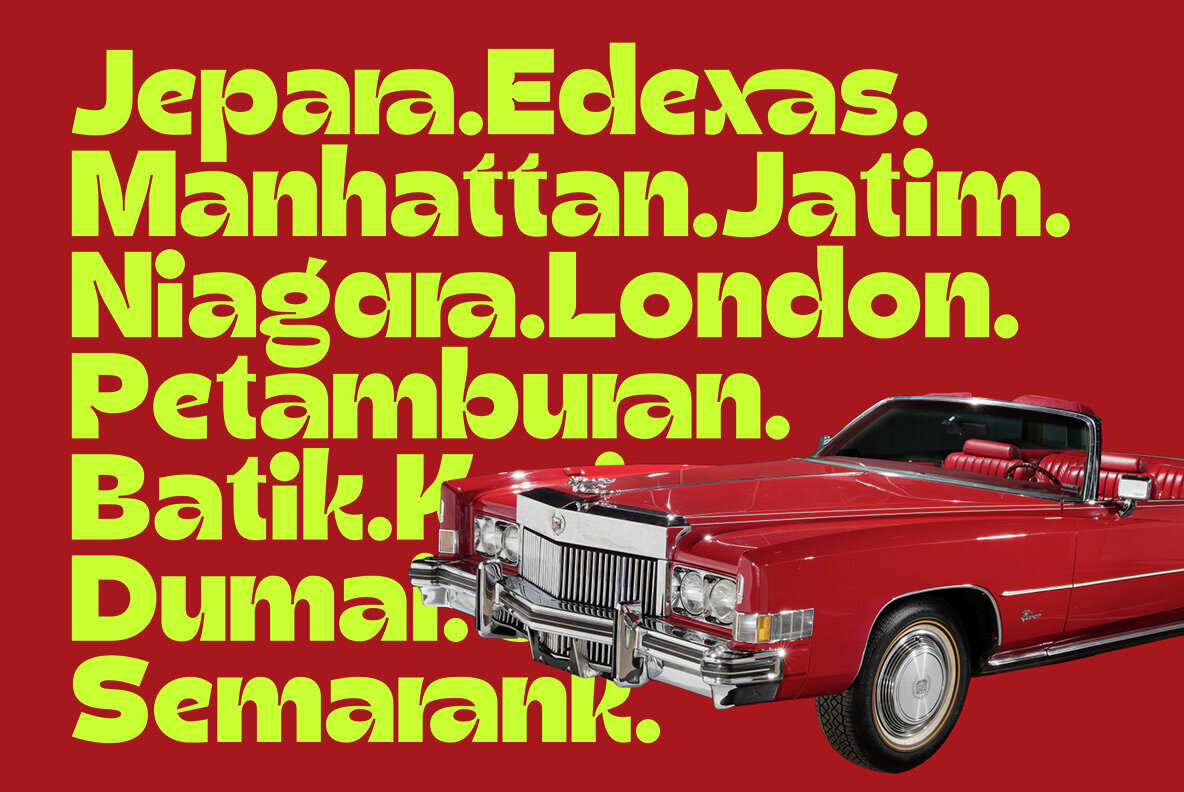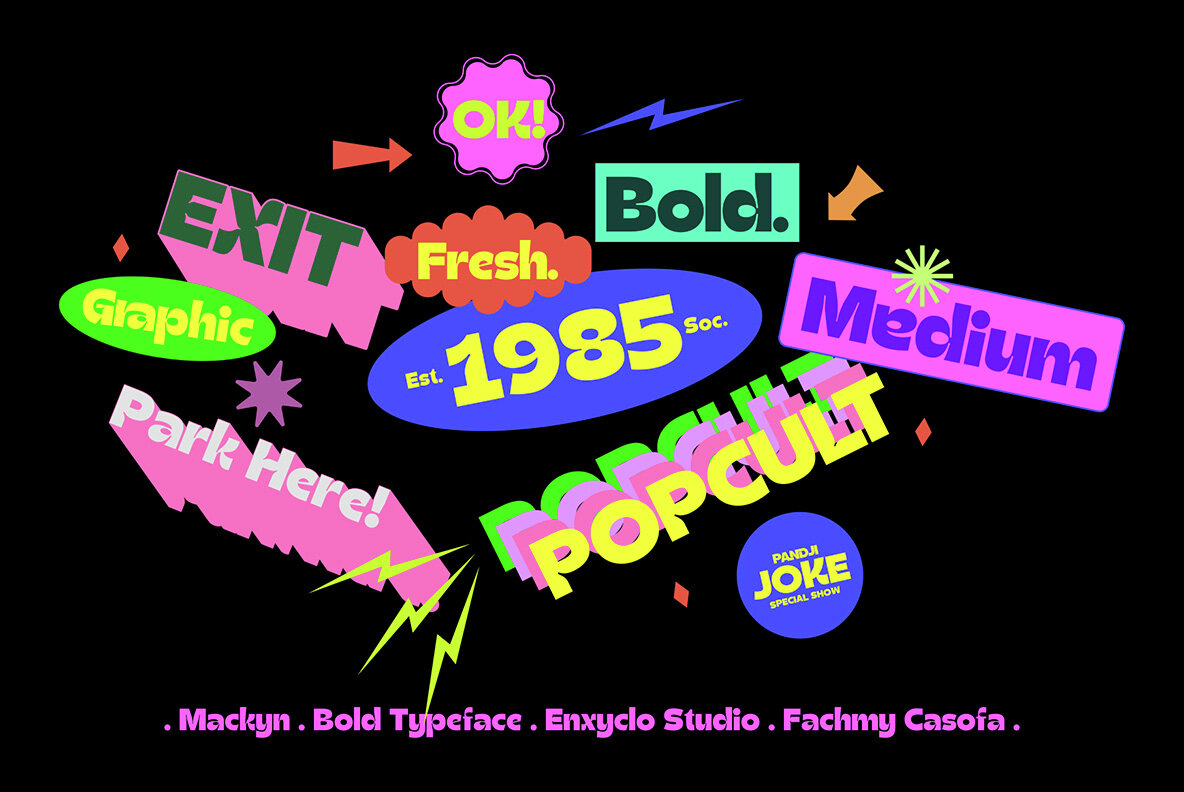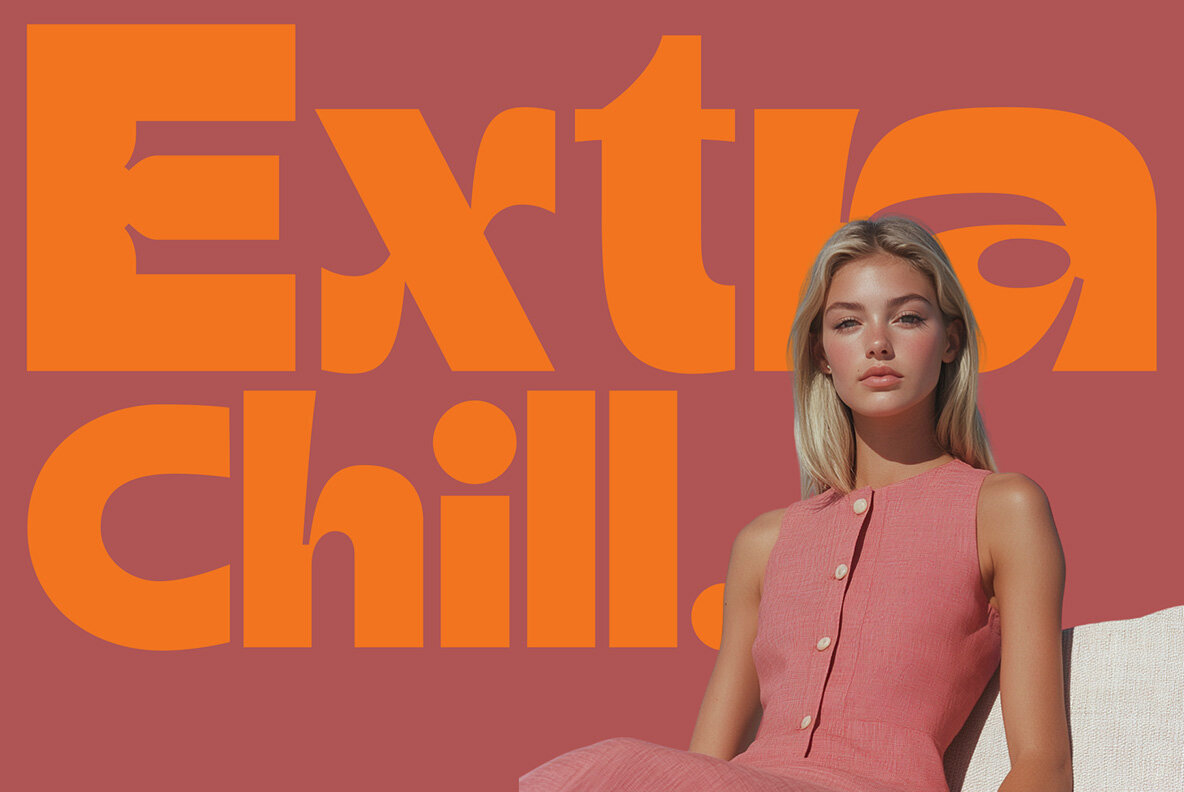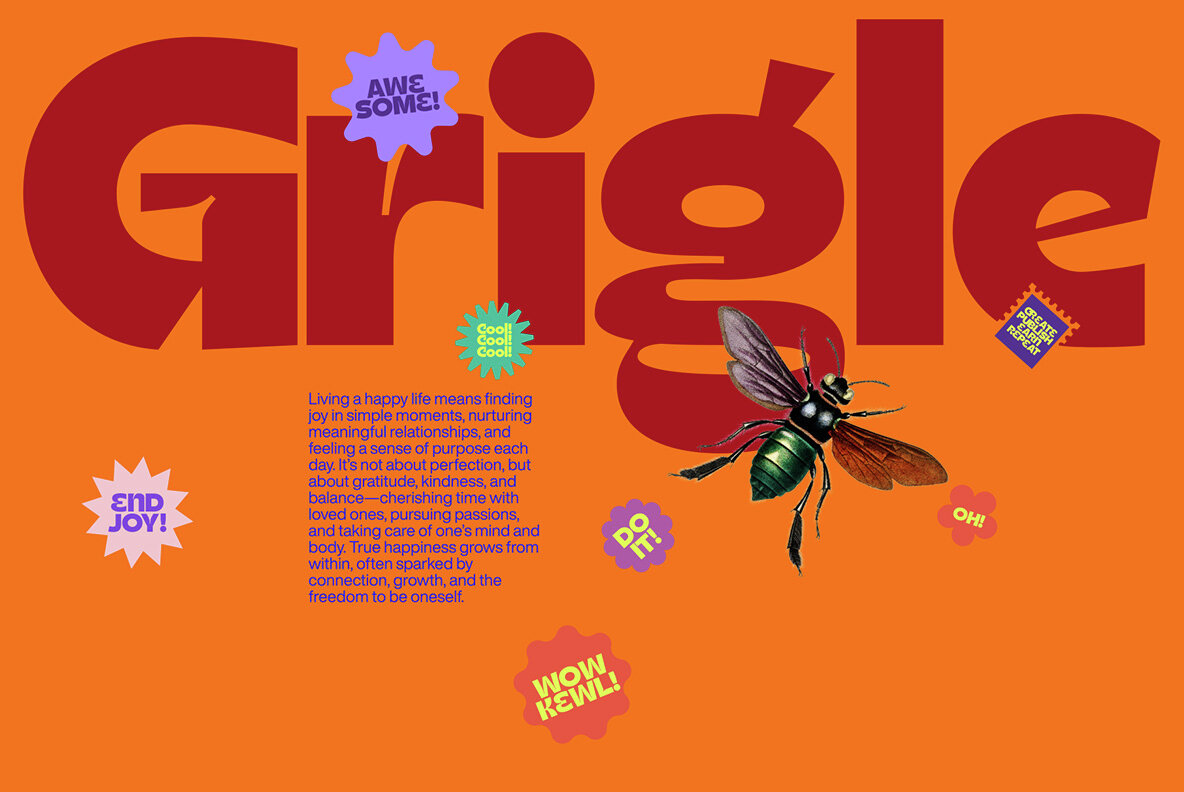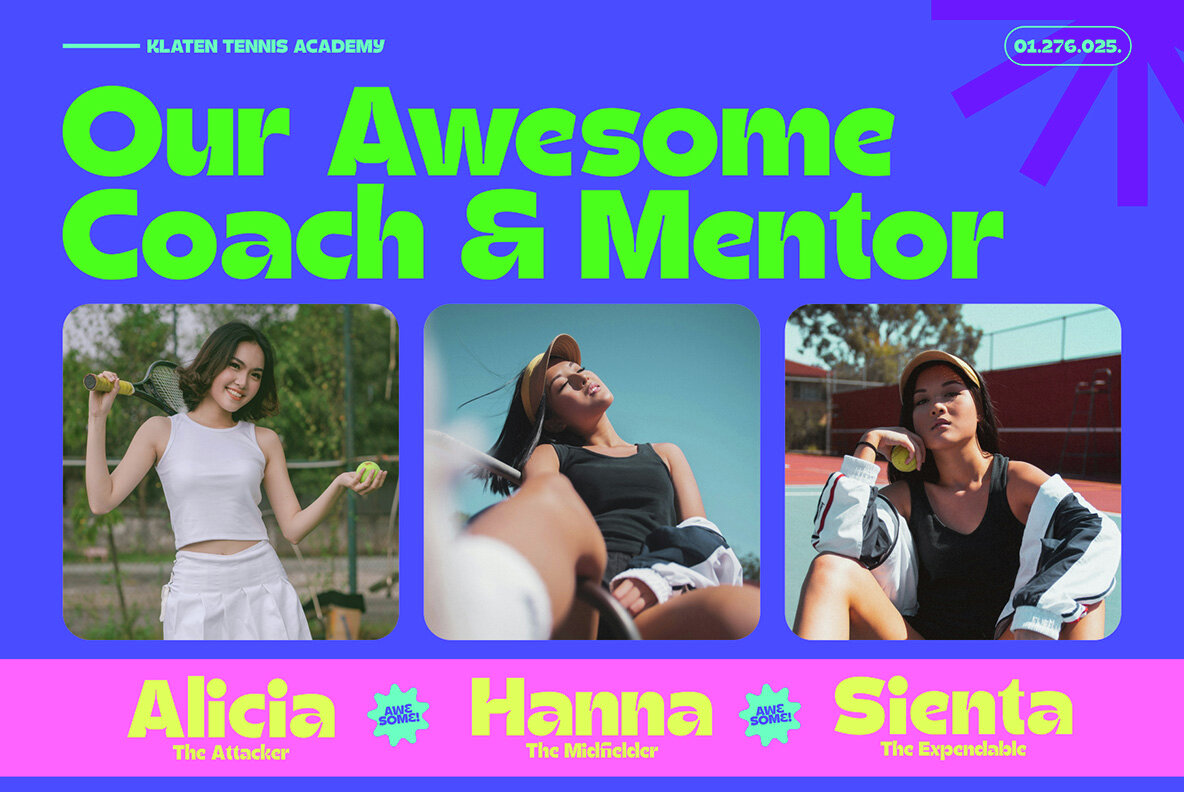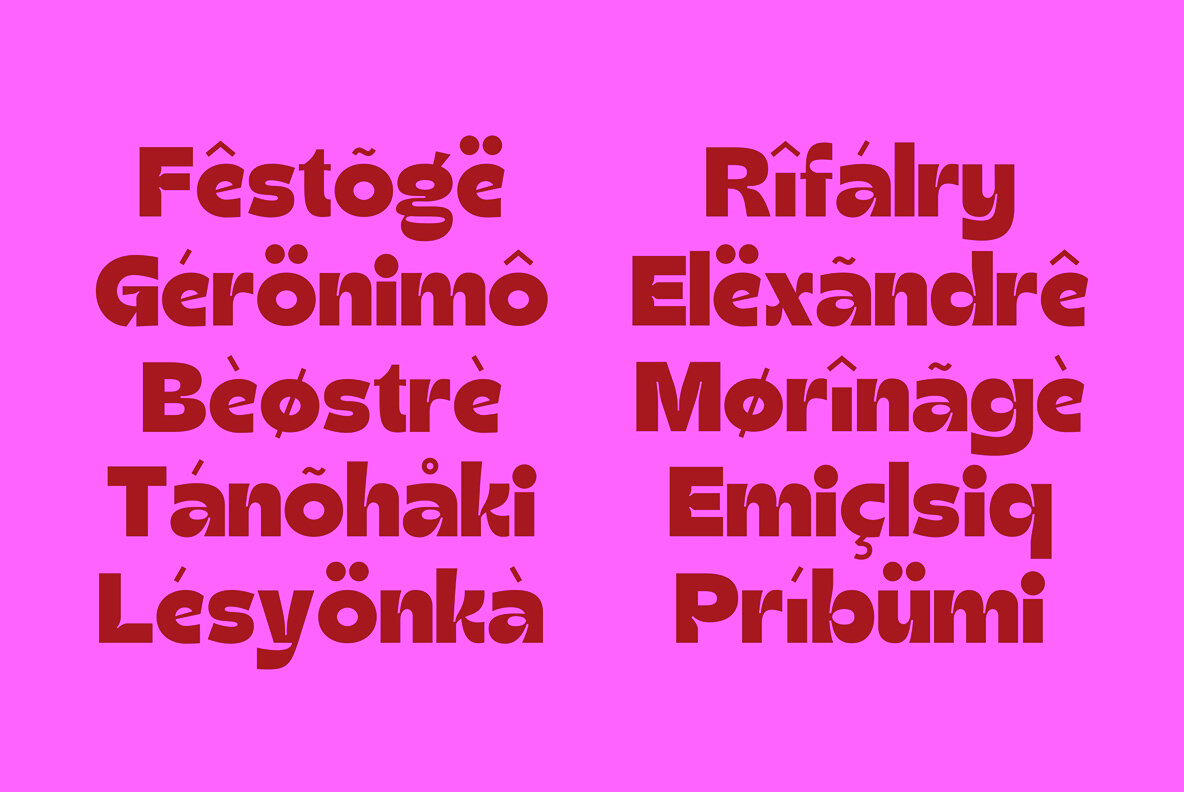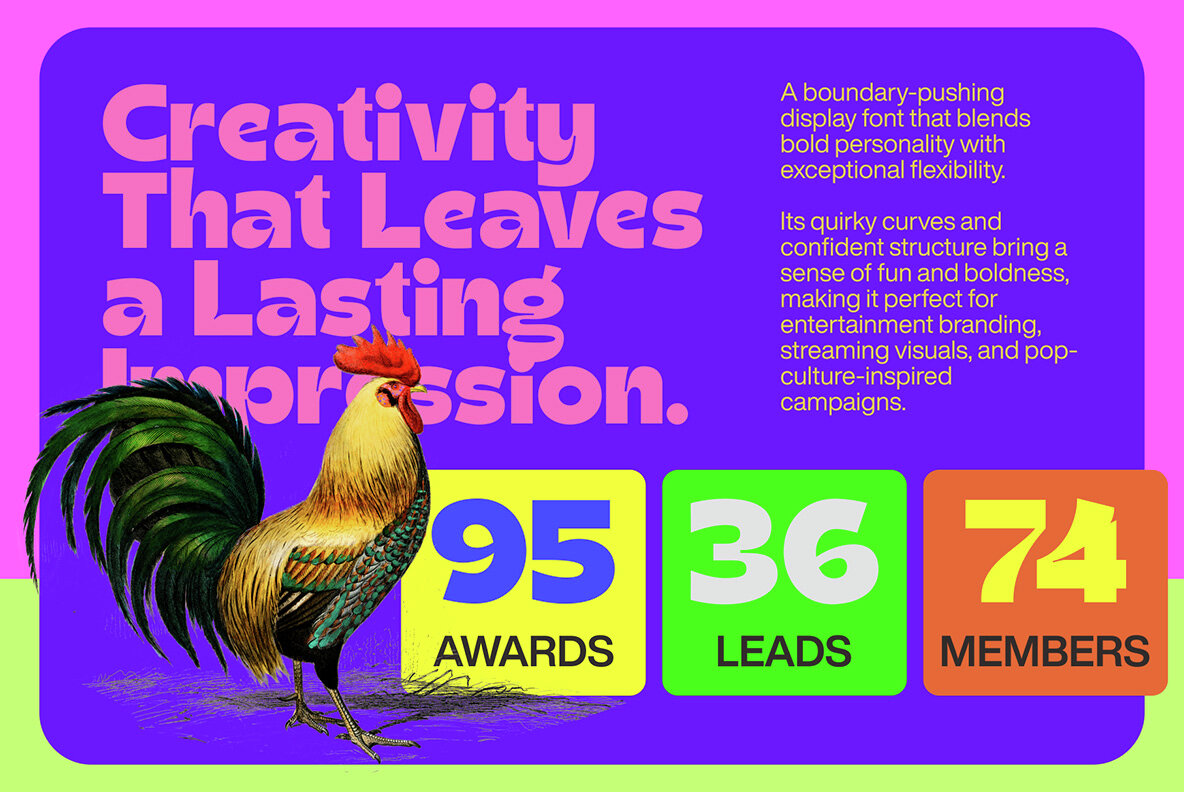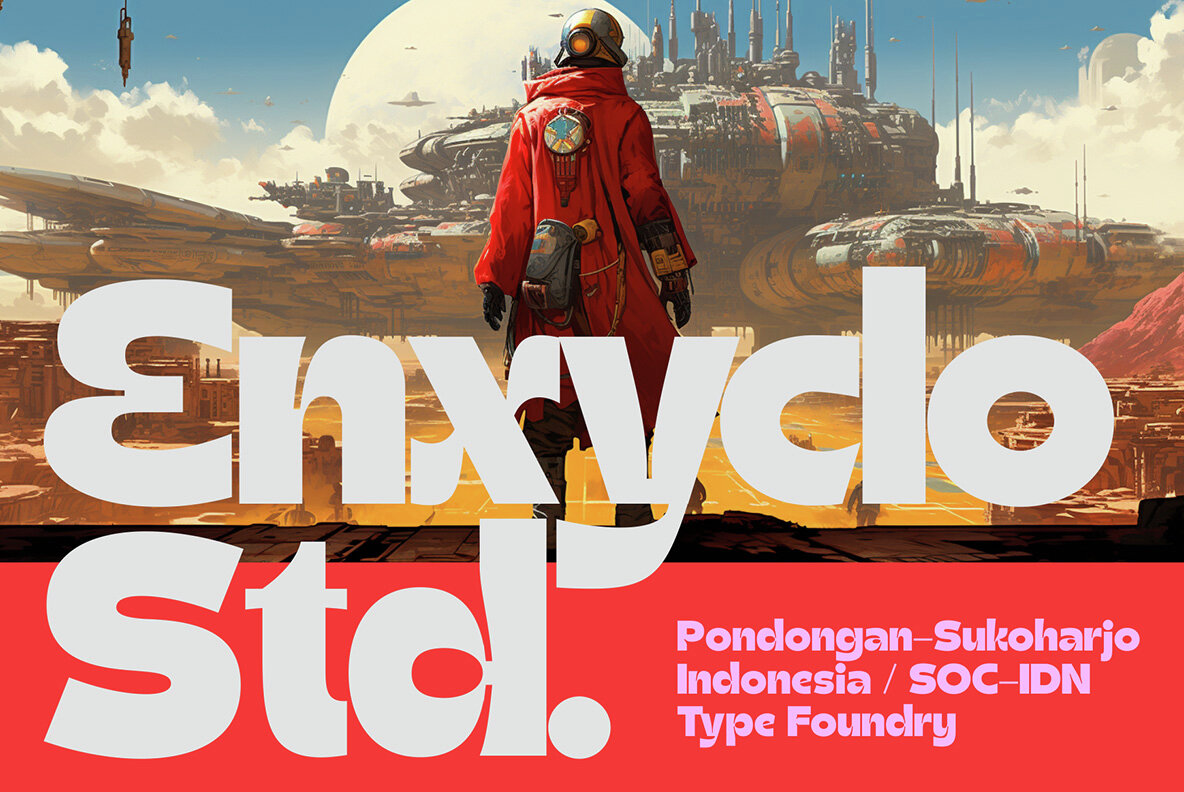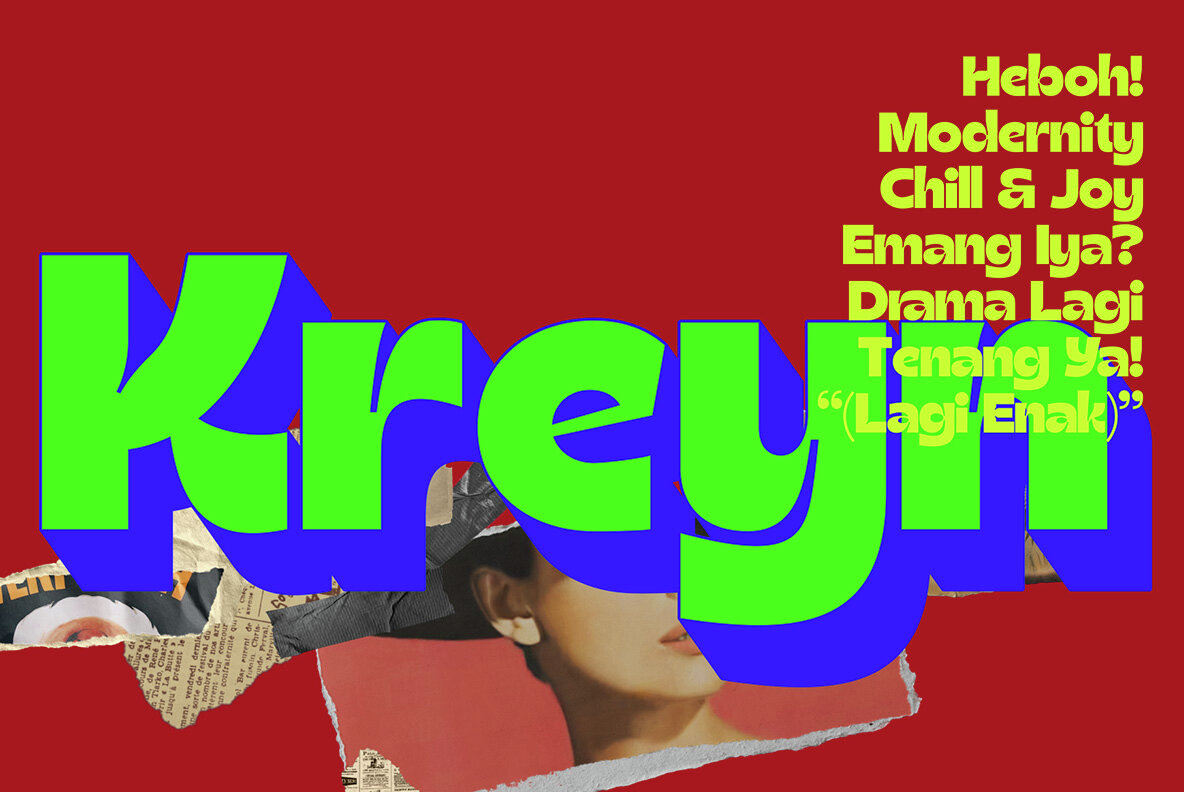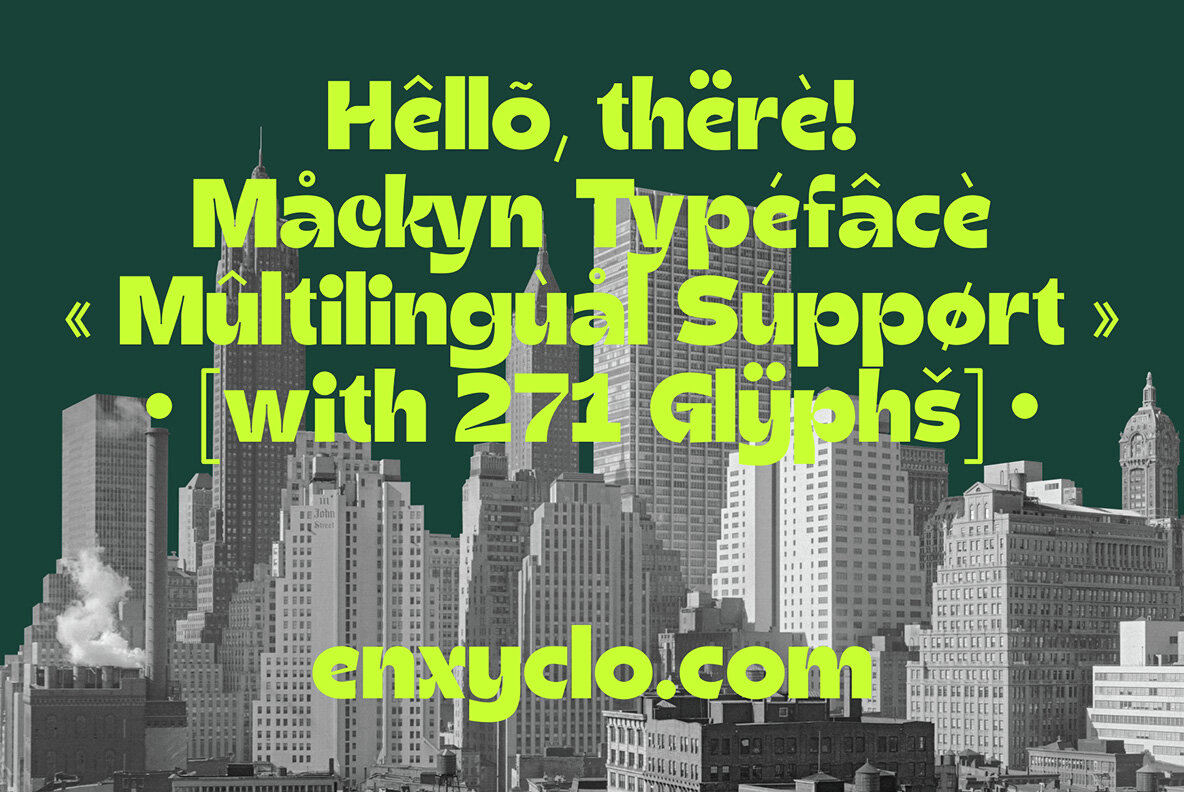
Mackyn Font
Mackyn Regular
Mackyn is a modern display font characterized by bold geometric shapes and stylish curves, offering a striking visual appeal. Designed for creating impactful branding and visual statements, it brings a contemporary edge to any project. Mackyn is perfect for bold logo designs, display typography, and attention-grabbing headlines. This font conveys confidence and style, providing a sleek choice for enhancing brand identity.Mackyn: Bold Display Font for Impactful Design